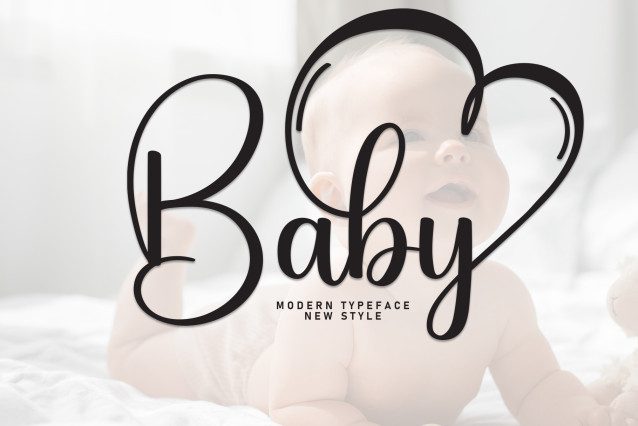
Baby Script Type
Baby Script Type is an elegant and delicate handwritten typeface. This is perfect for your various design needs, such as logos and branding, social media posts, advertisements, business cards, wedding invitation, product design, etc.